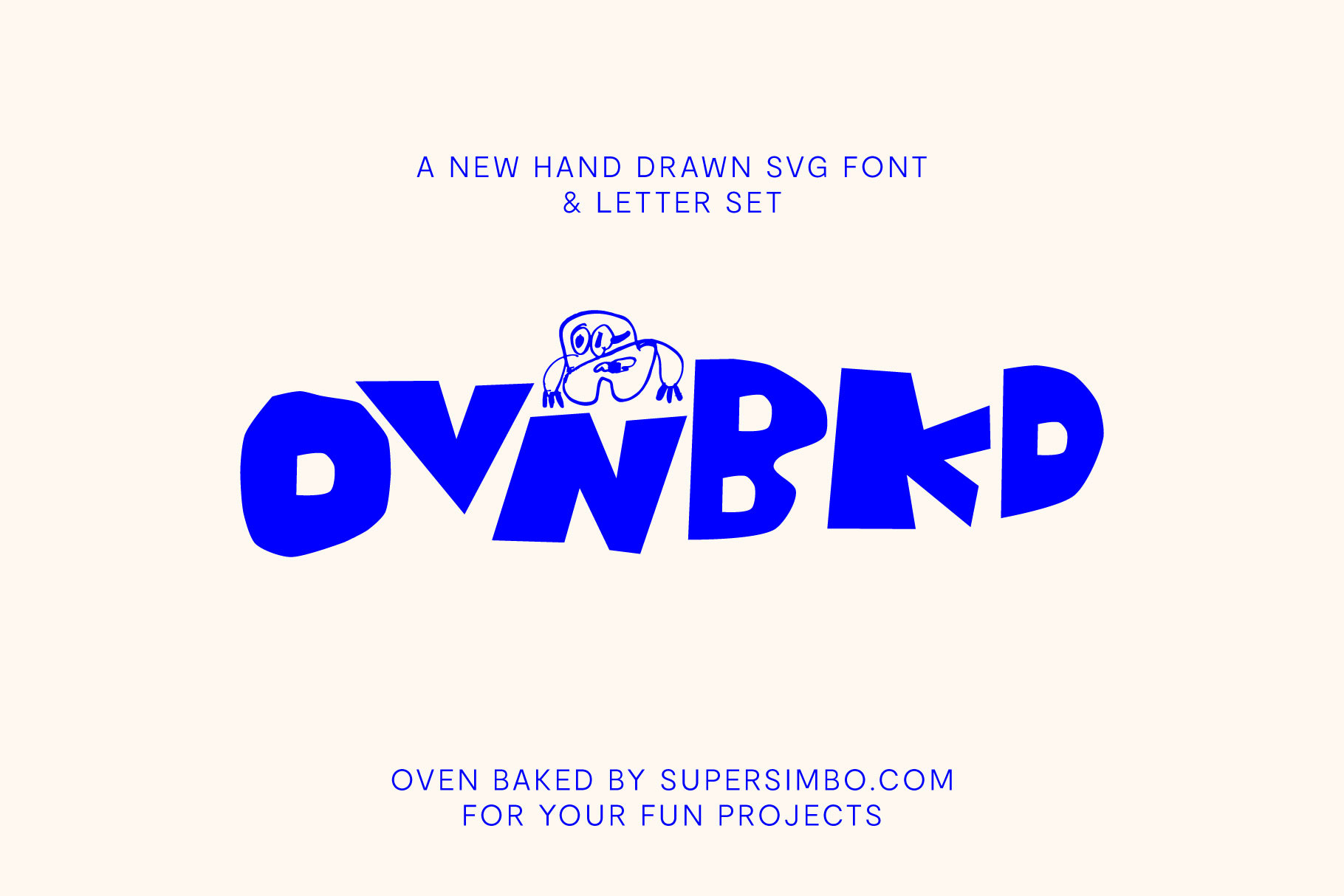
Ovenbaked | Hand drawn font
A new hand drawn SVG font and letter set by supersimbo.com.
Oven Baked is randomly organised and flatteringly beautiful... boo!!
There's not much more to say, you'll love it for your fun projects, trust me.